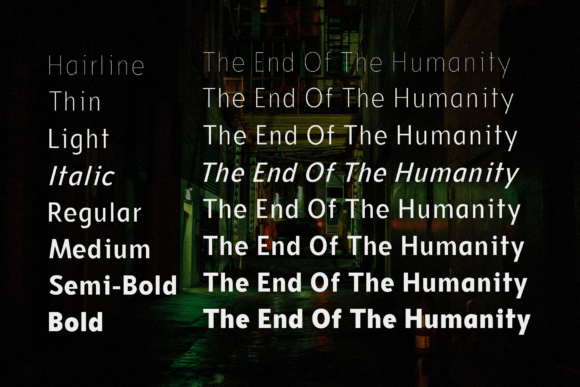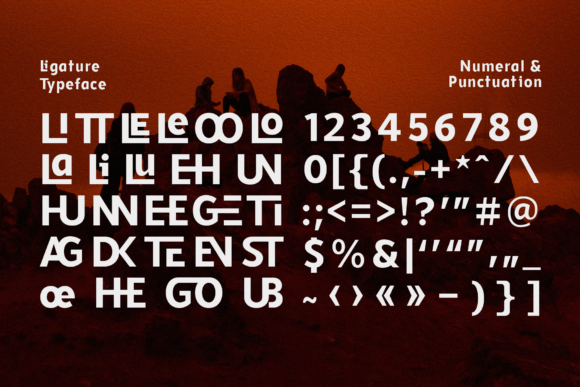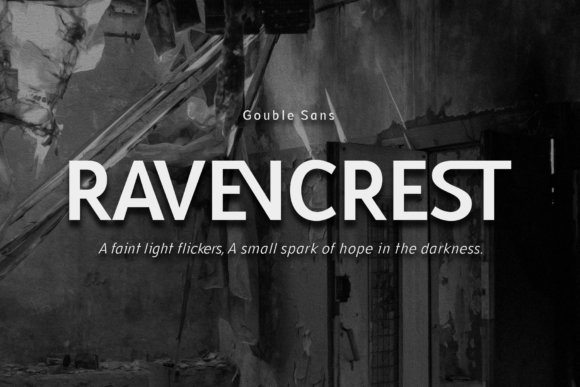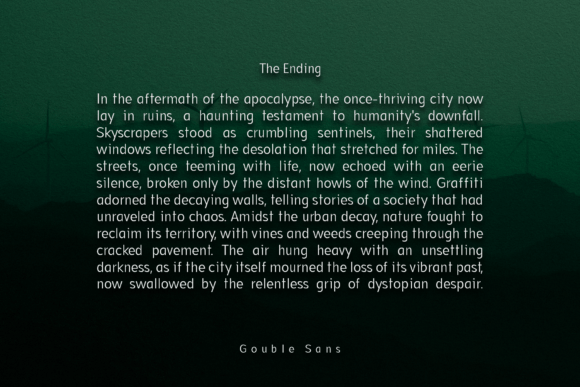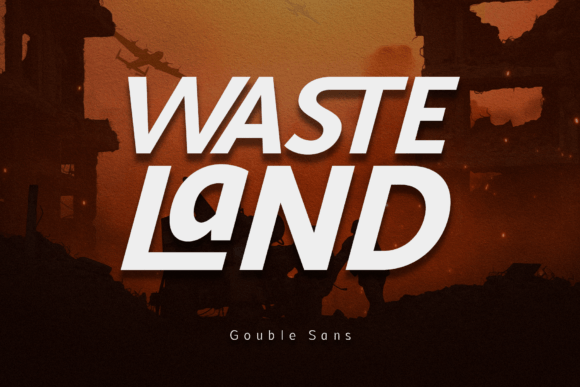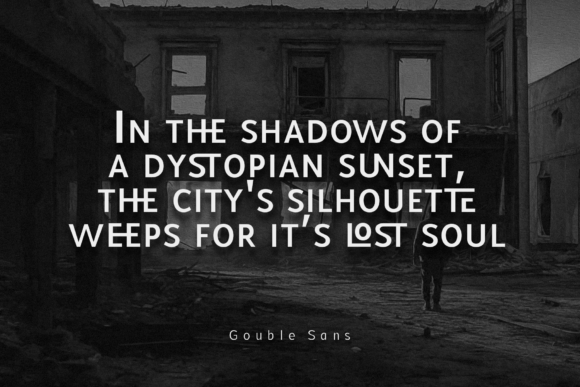
Introduction to Gouble Font
Gouble is a contemporary gothic sans-serif typeface, characterized by its geometric precision and impactful presence.
Its clean lines and remarkable proportions evoke a sense of modern architecture Crisp lines and sharp angles lend a modern and professional aesthetic, and consistent stroke weight conveys confidence and impact, ideal for headlines and branding.
Key Features of Gouble Font